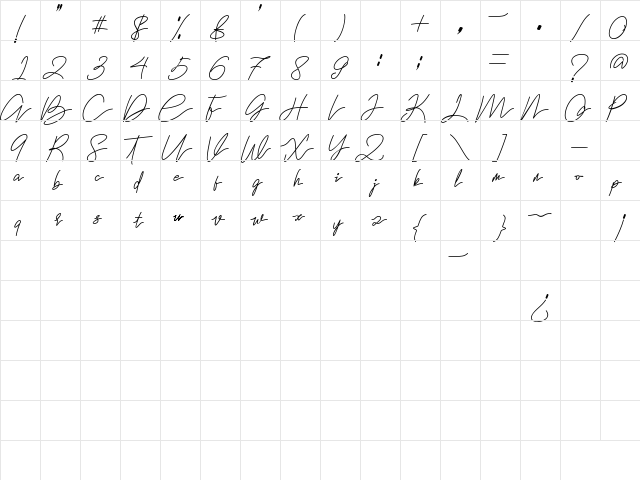
Hanabilla Regular Font Preview
Hanabilla Regular
Hanabilla Regular Font Details
| Designer | Deny Dwi Kurniawan |
Design Context for Hanabilla Typeface
Hanabilla is a composed and adaptable typeface that performs quietly and consistently across a wide range of design contexts.